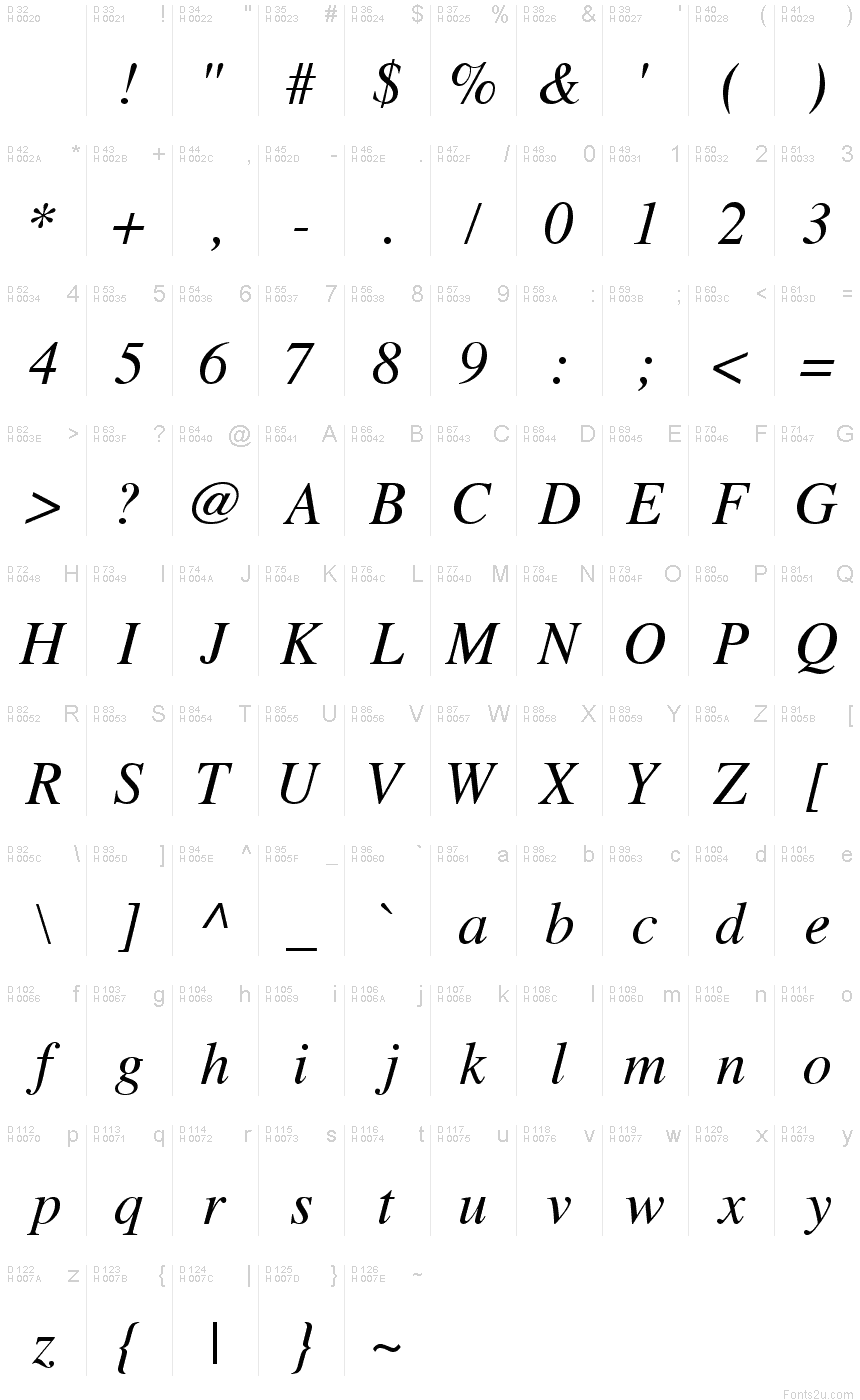
VremyaFWF Italic from Casady & Greene, Inc. is a free high-contrast italic serif shaped by the elegance of formal pen lettering. Fine rising strokes meet broad, dark curves, and the pronounced slant carries each letter forward with easy momentum. Long, tapered finishing strokes lend the design a graceful flourish without obscuring its strong serif structure.
Book covers are its most convincing setting. For fashion editorials, invitations, and perfume packaging, the sweeping curves can echo ribbons and ornamental borders as part of the wider graphic theme.